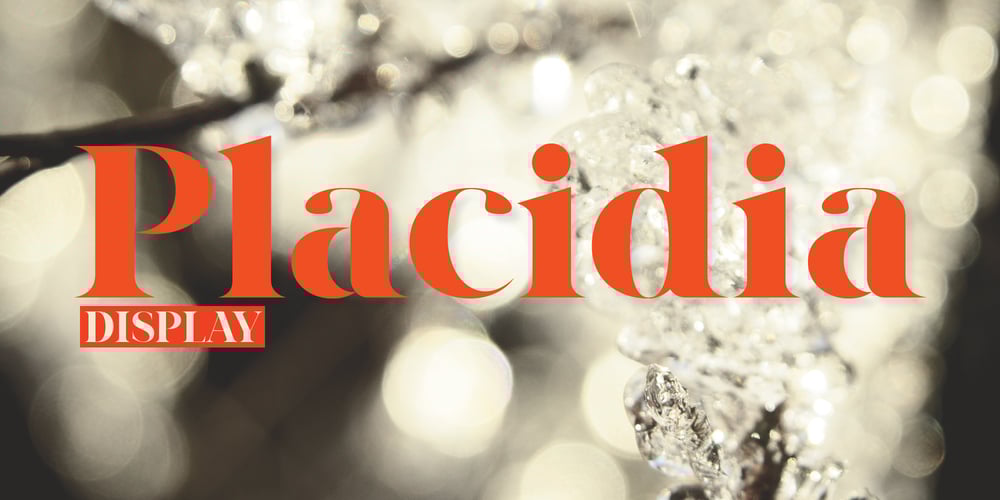
Placidia Display
Placidia Display font
Placidia Display Font Family was designed by Asgeir Pedersen and published by Asgeir Pedersen. Placidia Display contains 8 styles and family package options. As the name suggests, Placidia Display is primarily a font for headings and titles, used at large sizes. Try it together with Placidia Sans, or for contrast, another (geometric) sans.The Placidia fonts, including the Normal and Display versions, are both elegant and stylish, light and strong, all the way in weights from extra light to extra bold and black.